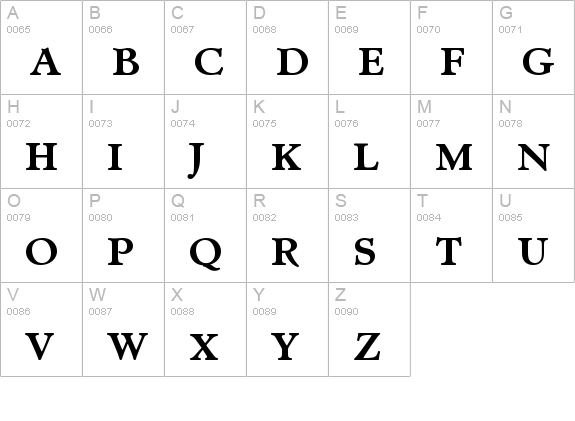
MinisterT Bold Font Details
MinisterT Bold is a strong, high-contrast variant in the MinisterT typeface family \xE2\x80\x94 well suited to headlines, attention-grabbing titles, and strong calls-to-action.
MinisterT Bold font is a striking and modern typeface that exudes confidence and authority. With its bold and sharp design, this font commands attention and makes a strong statement in any project. Perfect for headlines, titles, and other attention-grabbing text, MinisterT Bold is sure to make your words stand out. The best part? MinisterT Bold font is completely free to download at FontsMarket.com. This means you can enhance your designs with this powerful font without any cost. Whether you're working on a poster, website, logo, or any other creative project, MinisterT Bold font is a versatile choice that will elevate your typography game. Don't miss out on this incredible opportunity to add MinisterT Bold font to your font library for free. Download it today and start making a bold statement with your designs!